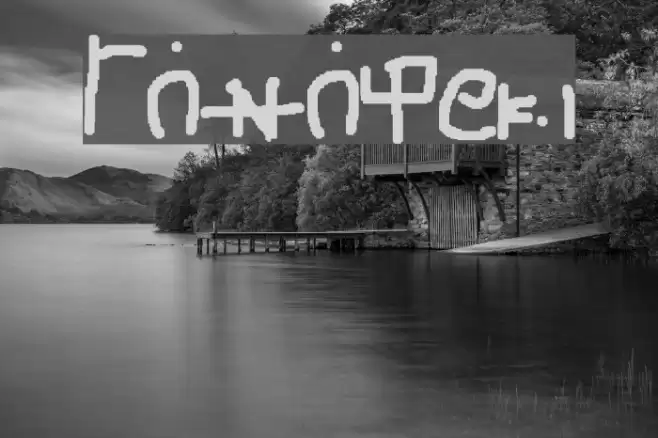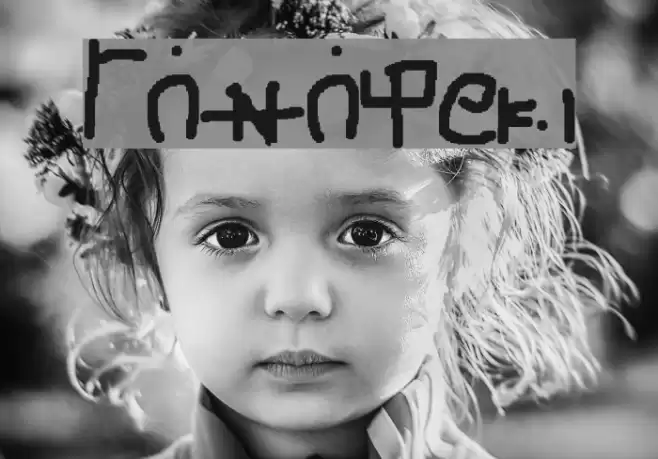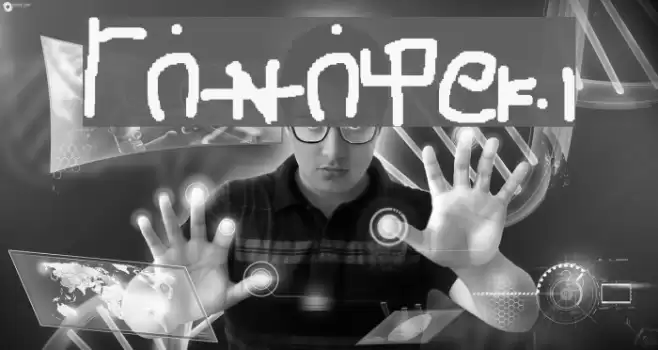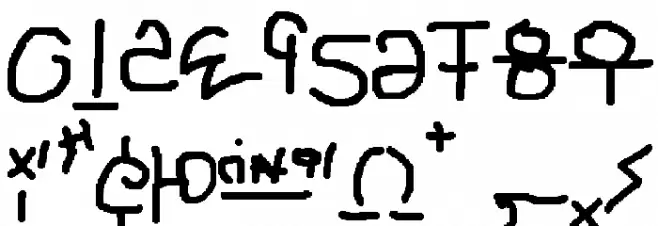
Lanarski Font
Lanarski Description
This design features a highly stylized and abstract set of characters that resemble ancient or fictional script. The characters are composed of bold, sweeping strokes with a consistent thickness, giving them a uniform appearance. The overall look is reminiscent of runes or glyphs, with each character having a unique and distinct form. The style is decorative and artistic, making it suitable for creative projects that require a touch of mystery or fantasy. The characters are evenly spaced, providing a balanced and cohesive look across the set.
A bold, abstract script with a mystical and decorative style from Uncategorized fonts.
- Proposed Projects: Ideal for fantasy-themed designs, game interfaces, book covers, or any project requiring an enigmatic and artistic touch.
- Overall Style: Mystical, Decorative
- Use Case: Logos, Decorative text, Fantasy themes